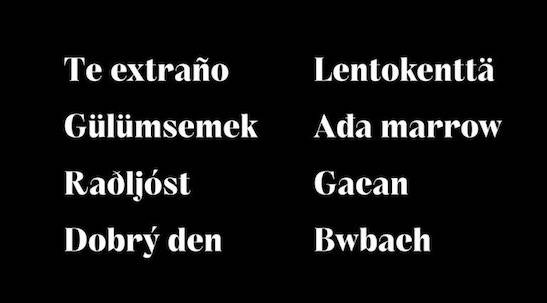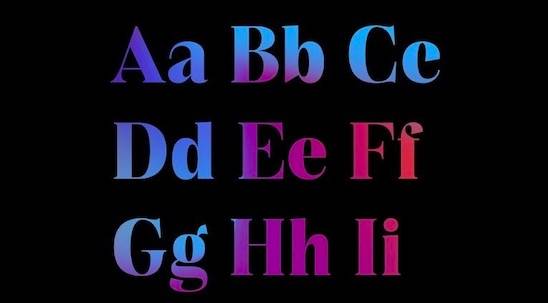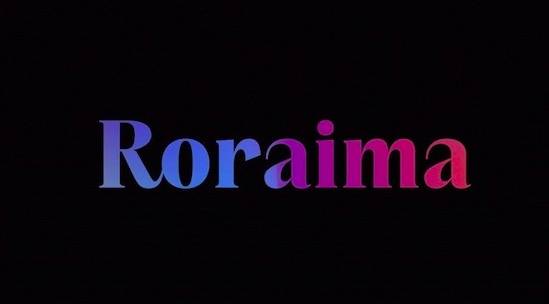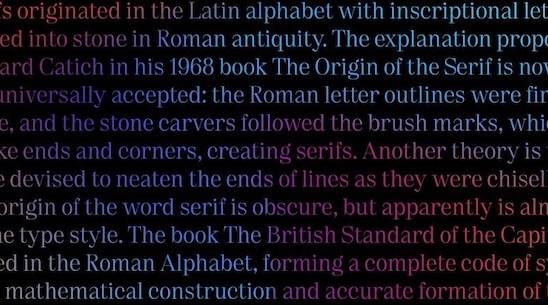
Roraima Font is a luxury serif font with a sophisticated style. Inspired by branded and luxury stuff make this font looks awesome and classy in many ways to your latest project. This Basic font was created by Elina Panda.